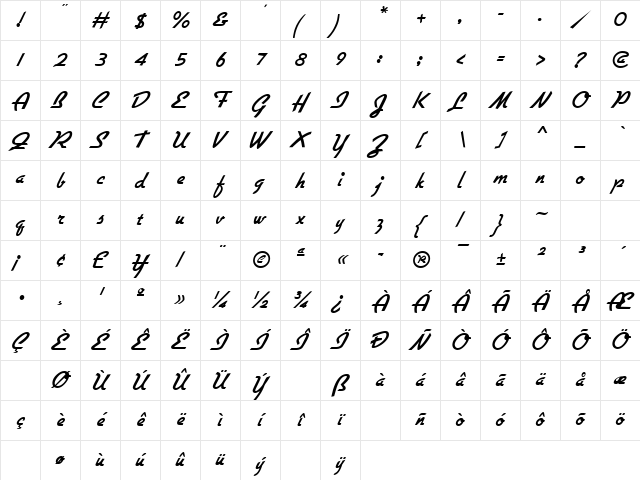
Cookies Oblique
Design Context for Cookies
Cookies is a composed and adaptable typeface that performs quietly and consistently across a wide range of design contexts. The slanted form adds forward momentum and visual energy.
Pro Tip: Use Cookies for emphasis, pull quotes, and subheadings where its slanted energy can add rhythm to the layout.